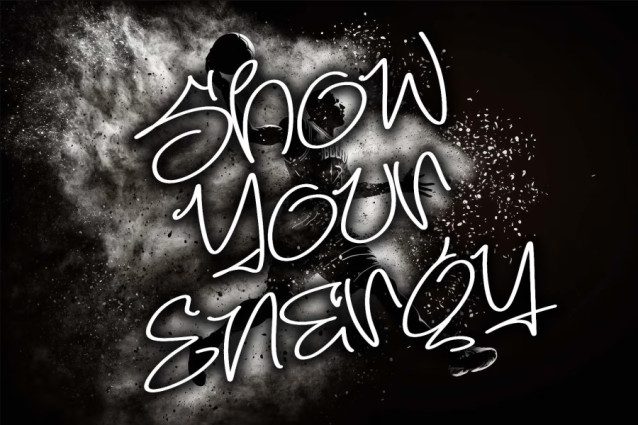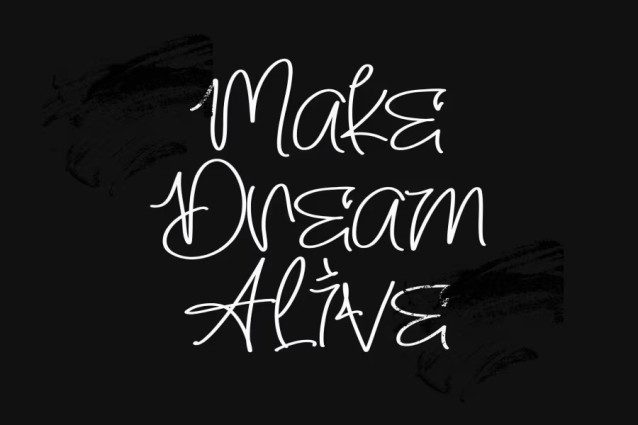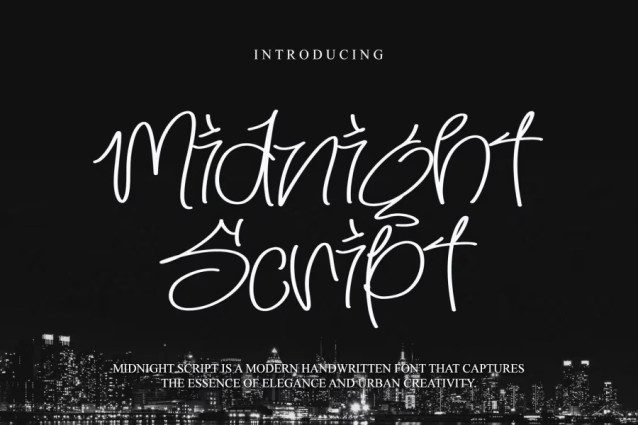
Midnight Handwritten Font
Midnight Script Font is a modern handwritten font that captures the essence of elegance and urban creativity. With its tall, flowing strokes and unique handwritten details, this typeface delivers a sophisticated yet relaxed aesthetic. Perfect for branding, logo design, posters, and digital artwork, Midnight Script brings a sense of night-time charm and artistic personality to any visual project. Its fluid lines and stylish curves make it ideal for designers seeking a contemporary handwritten feel with a touch of individuality.